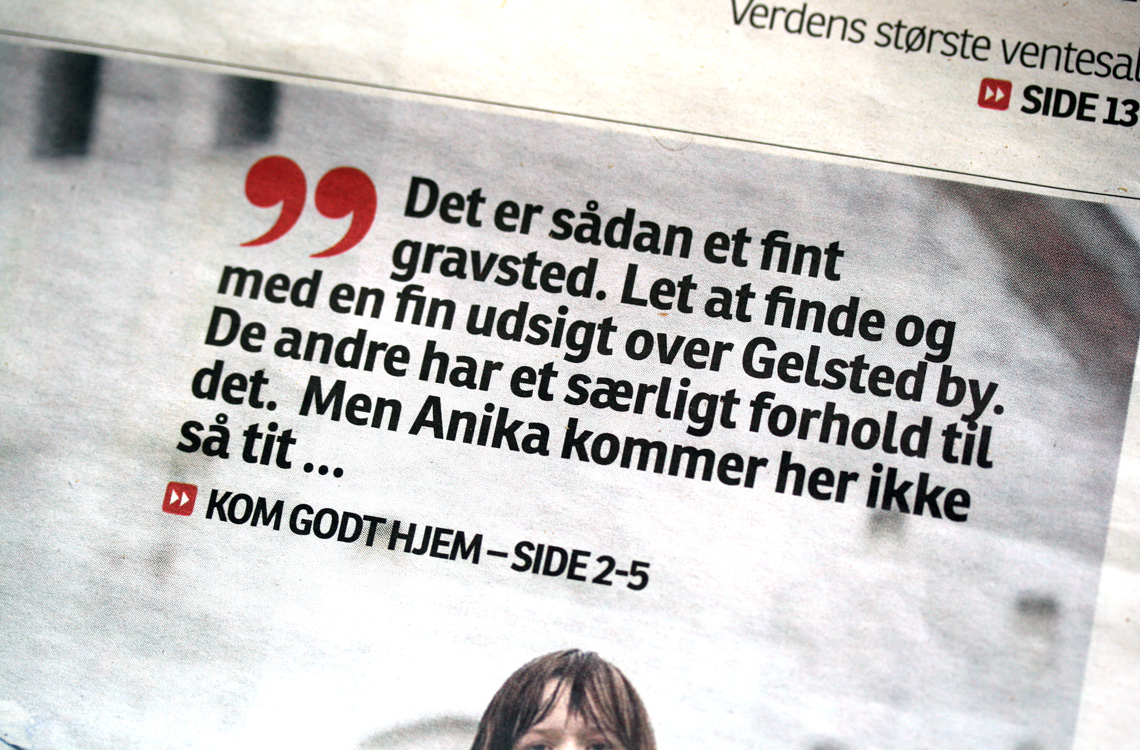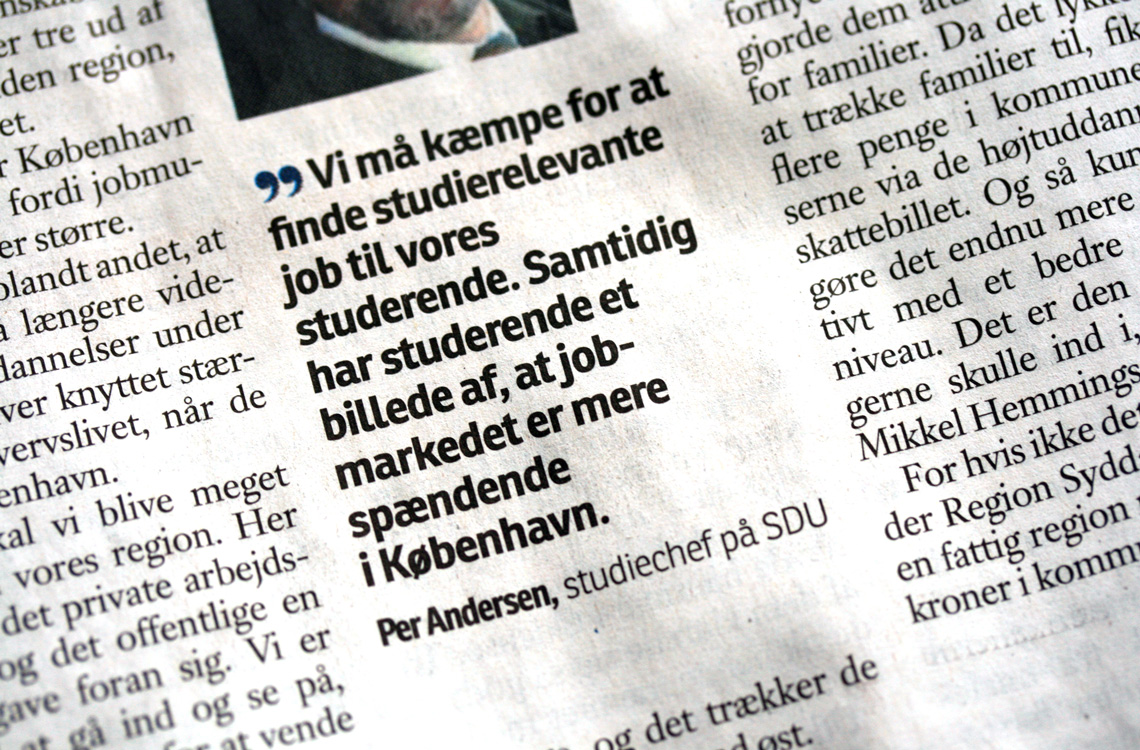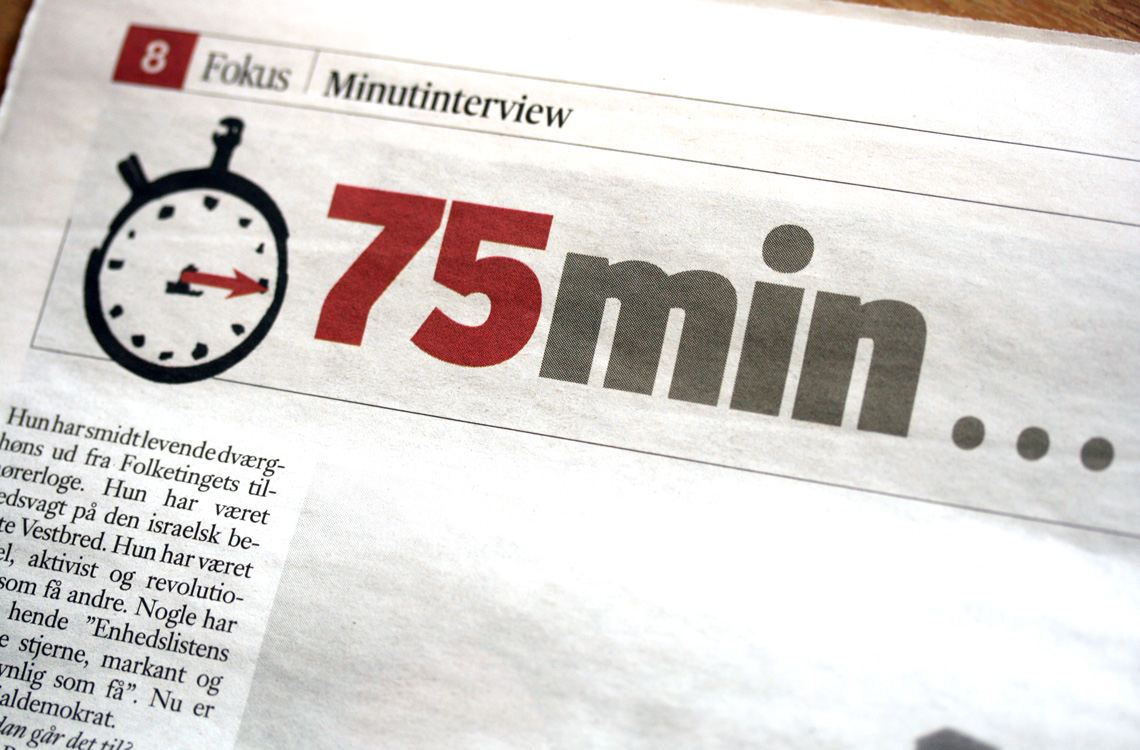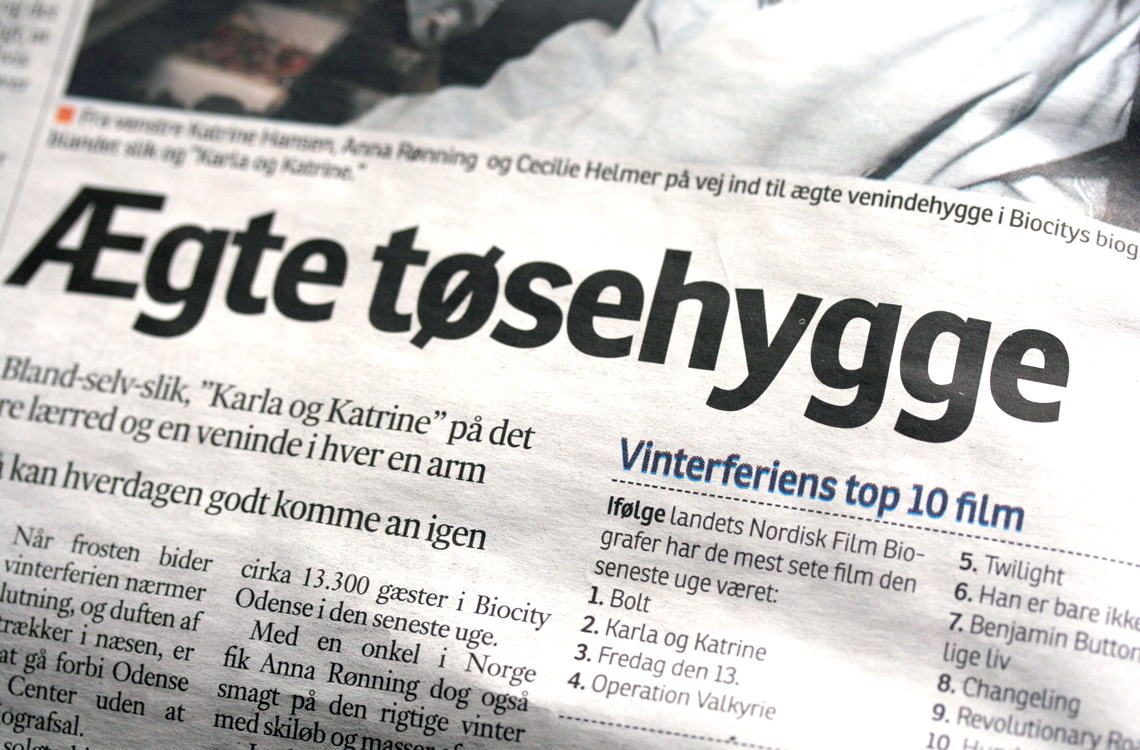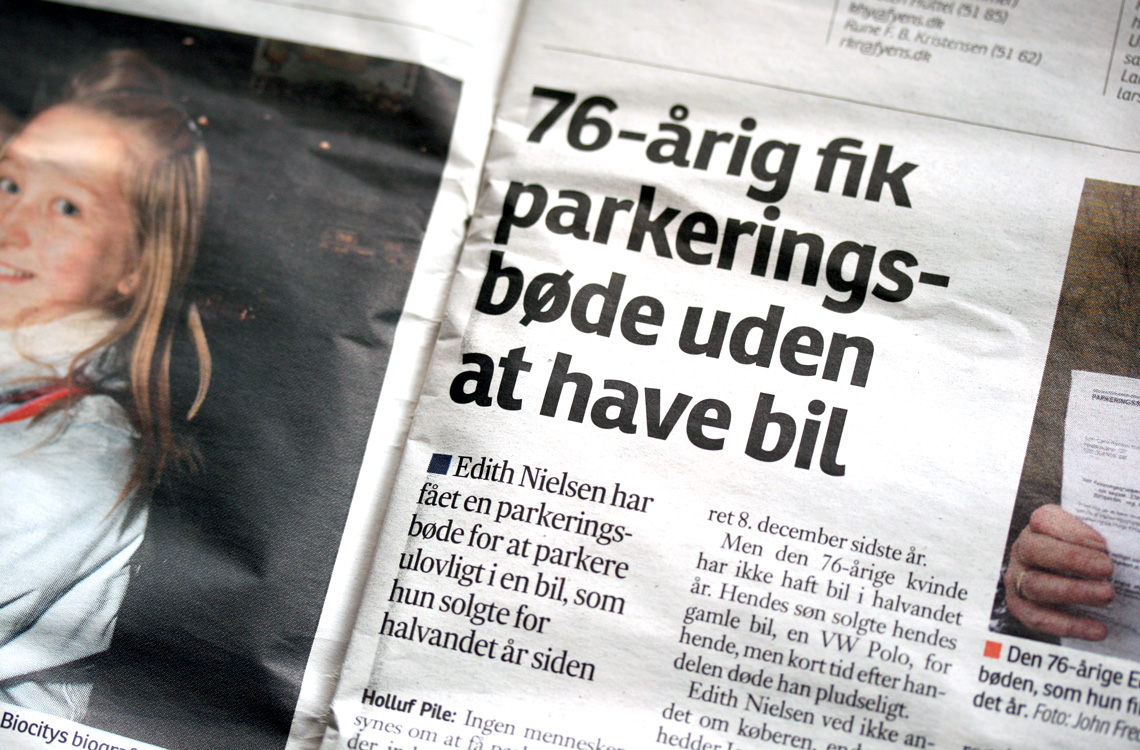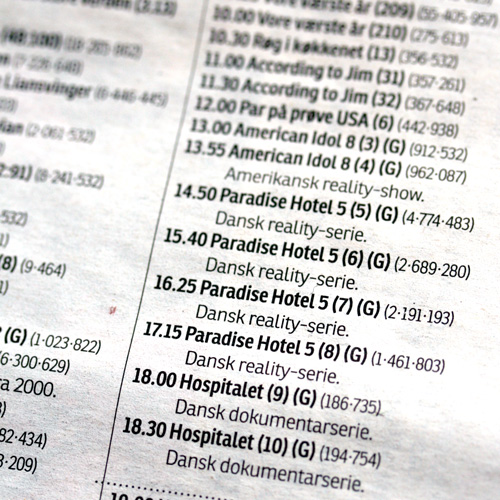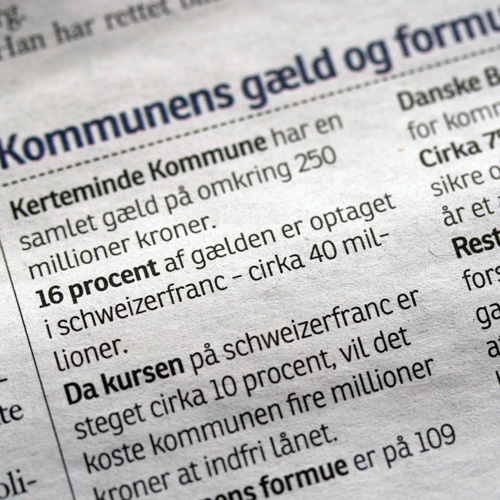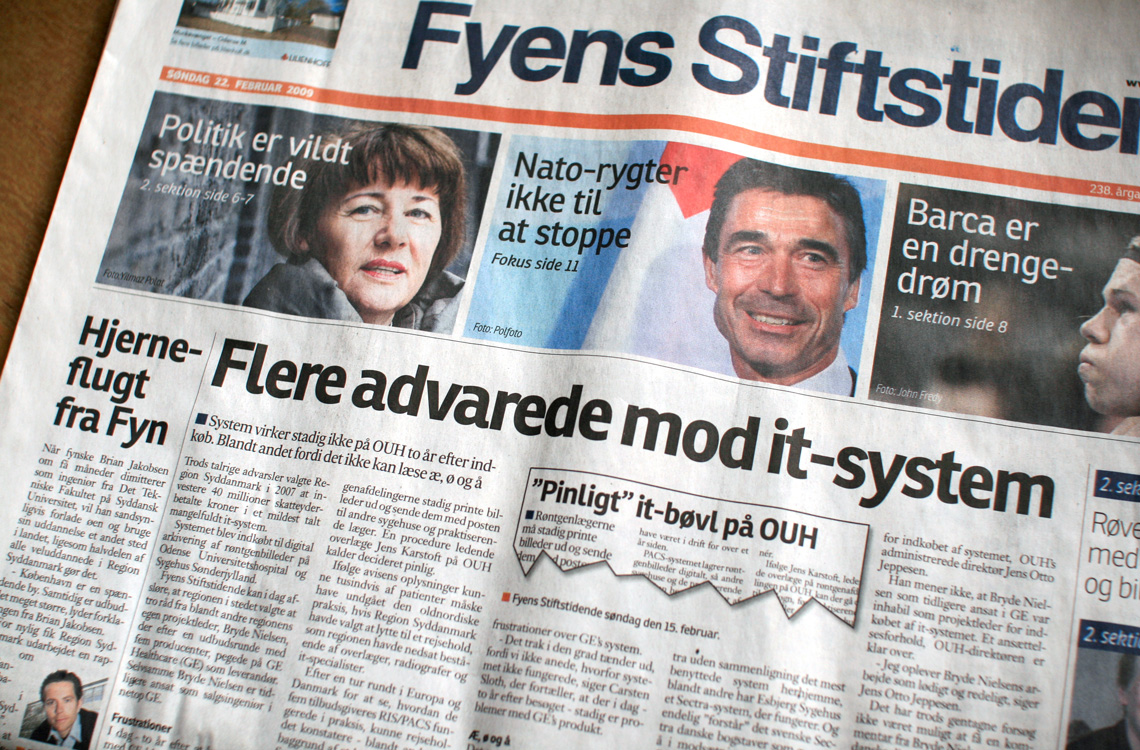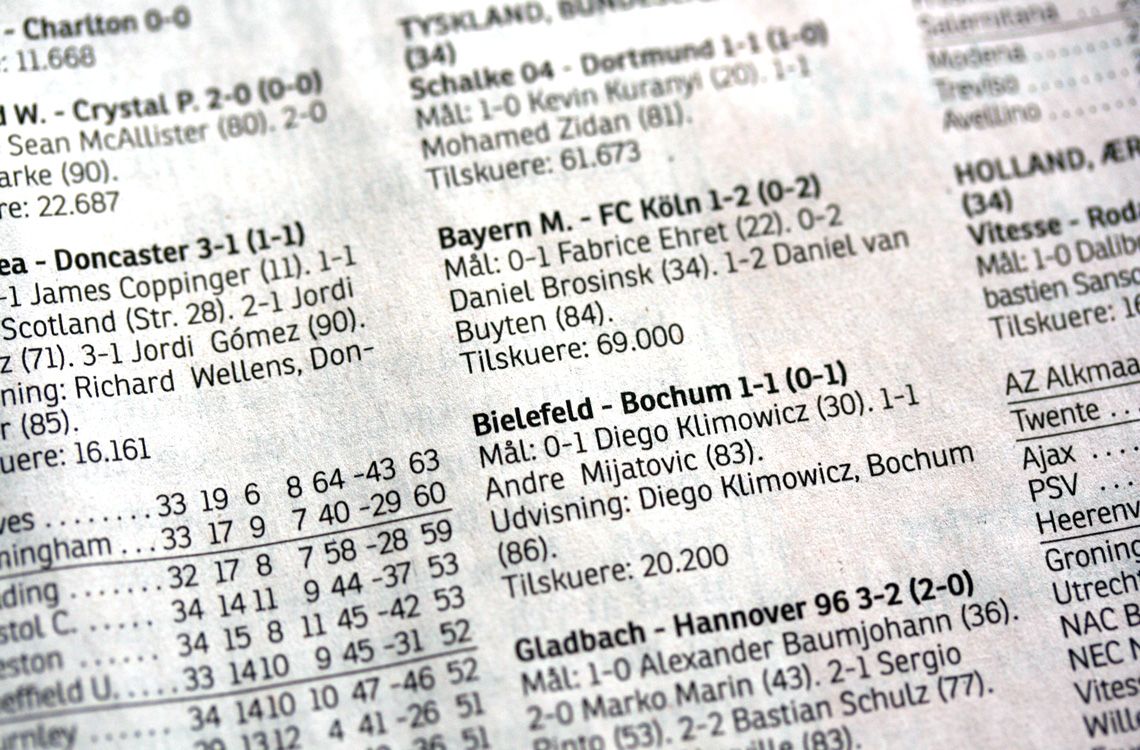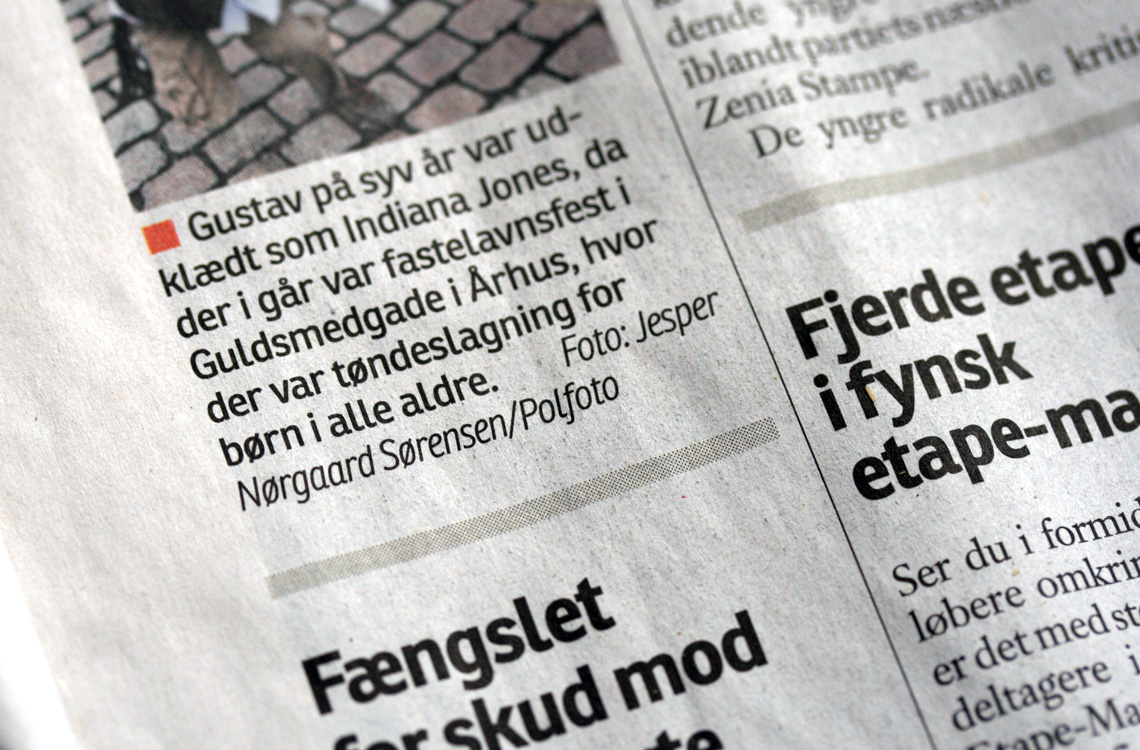
Fyens Stiftstidende
Ronnia lends its personality that performs admirably in headlines but is diffident enough for continuous small text to a new tabloid section of a Danish regional newspaper.
The editorial design firm Palmer Watson Ltd., with which we have collaborated in the past on the Irish Times, and their client, the Danish newspaper Fyens Stiftstidende, selected the Ronnia font family for the launch of a major new tabloid section that covers the city of Odense and the Fyn region. A whole typographic overhaul of the full newspaper was also part of the project.
The particularities of the Danish language and its letter combinations together with the desired tight spacing, required a tailored solution for the letters ‘y’ and ‘j’ that appear frequently after ‘g’ and ‘j’. The original design has a rather long outstroke tail which had to be shortened as not to clash with the other letters. As a result Ronnia is used in various weights mainly in titles, some text and tables.